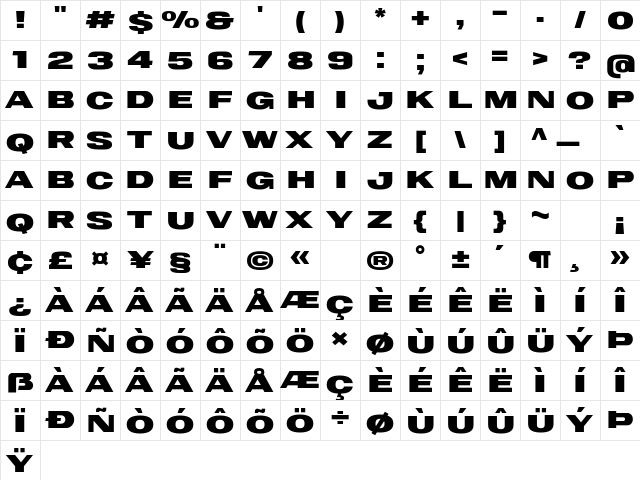
Neutro Extra Bold Regular
Design Context for Neutro Extra Bold Typeface
Neutro Extra Bold takes a measured approach to typography — its balanced proportions and neutral character make it a reliable workhorse for both digital and print work. Its bold stroke weight gives it real presence on the page.
Pro Tip: Use Neutro Extra Bold in both headline and body roles to test its range before committing to a single application.